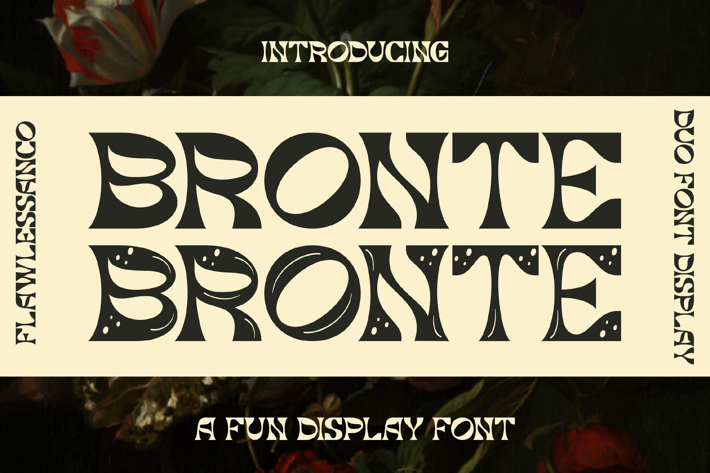
Bronte - Fun Display Font
Introducing "Bronte" where the joy of handwritten charm meets the versatility of two distinctive styles – Regular and Fun — adorned with patterns in fun styles that add an extra layer of delight to your designs. This delightful font is more than just a typeface; it's a celebration of creativity, offering a playful touch to your designs with a variety of patterns to sweeten the deal.
Uppercase alphabet A-Z
Lowercase alphabet a-z
Alternate Character
Numbers 0-9
Some punctuation